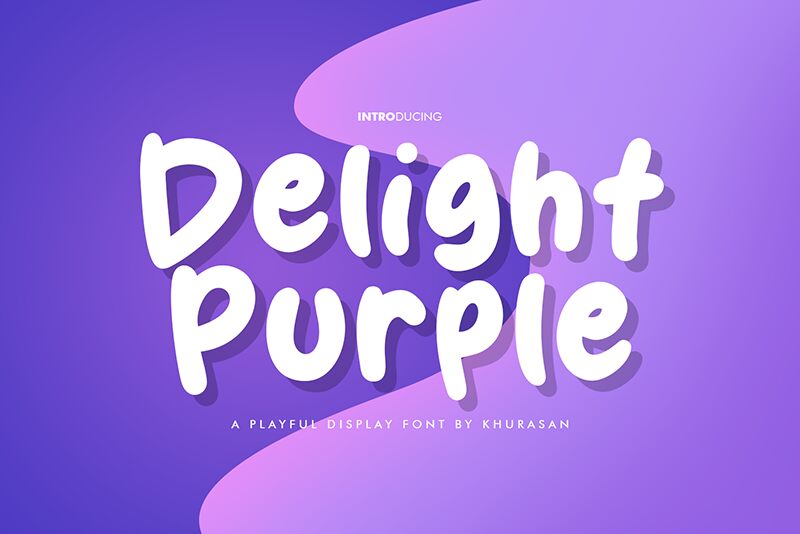
Delight Purple
Delight Purple font is a cartoon style typeface with a bold appearance designed by Khurasan. It holds an energetic, friendly, and playful vibe achieved by its expressive mood. The entire design has a modern aesthetic, which goes well with many projects from all sorts of industries.
A free display font like this one can be used for logos, branding designs, titles in pitch presentations and posters, greetings cards or event invitations. In addition to that, it suits typography quotes on social media posts or websites like blogs and personal project showcases.